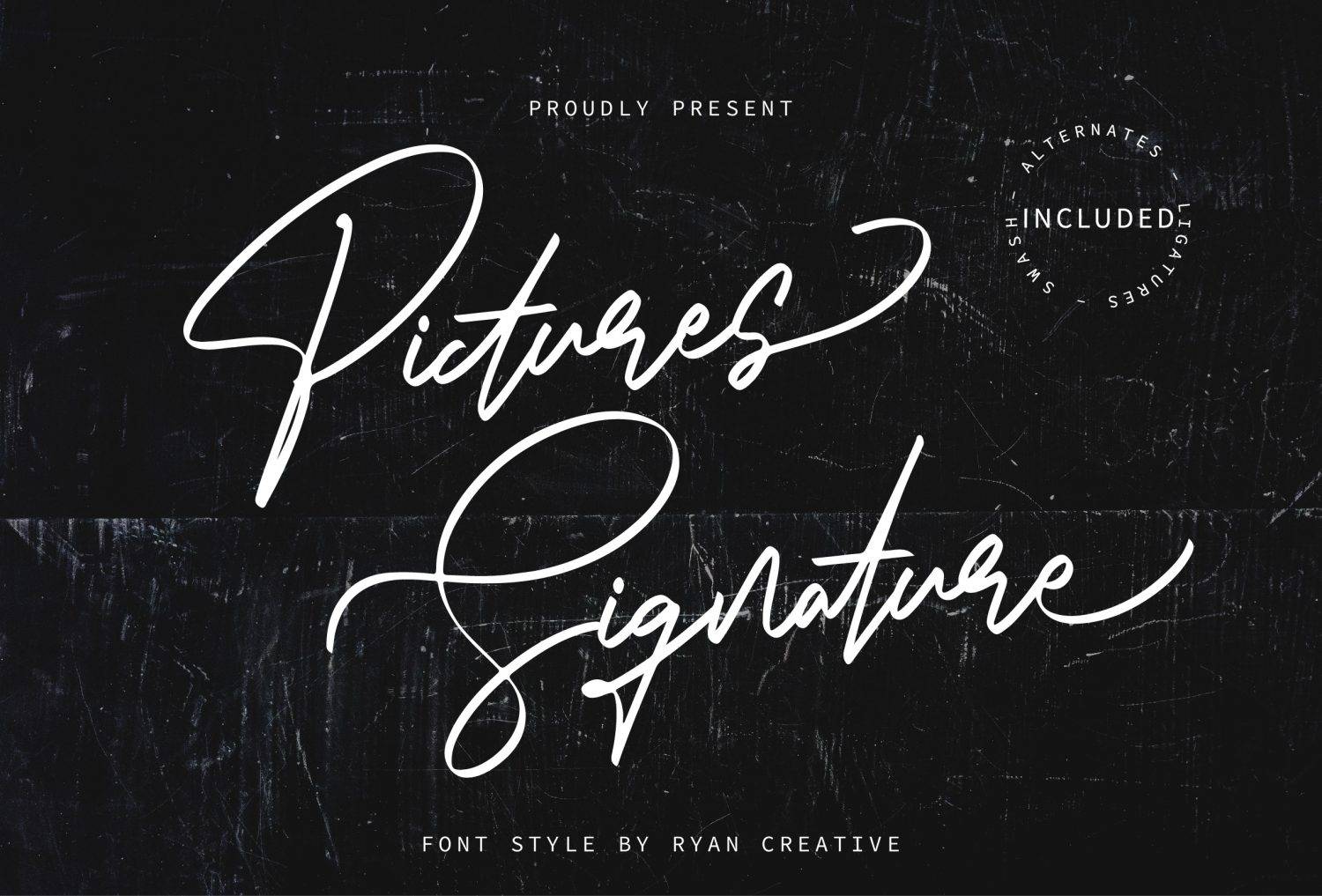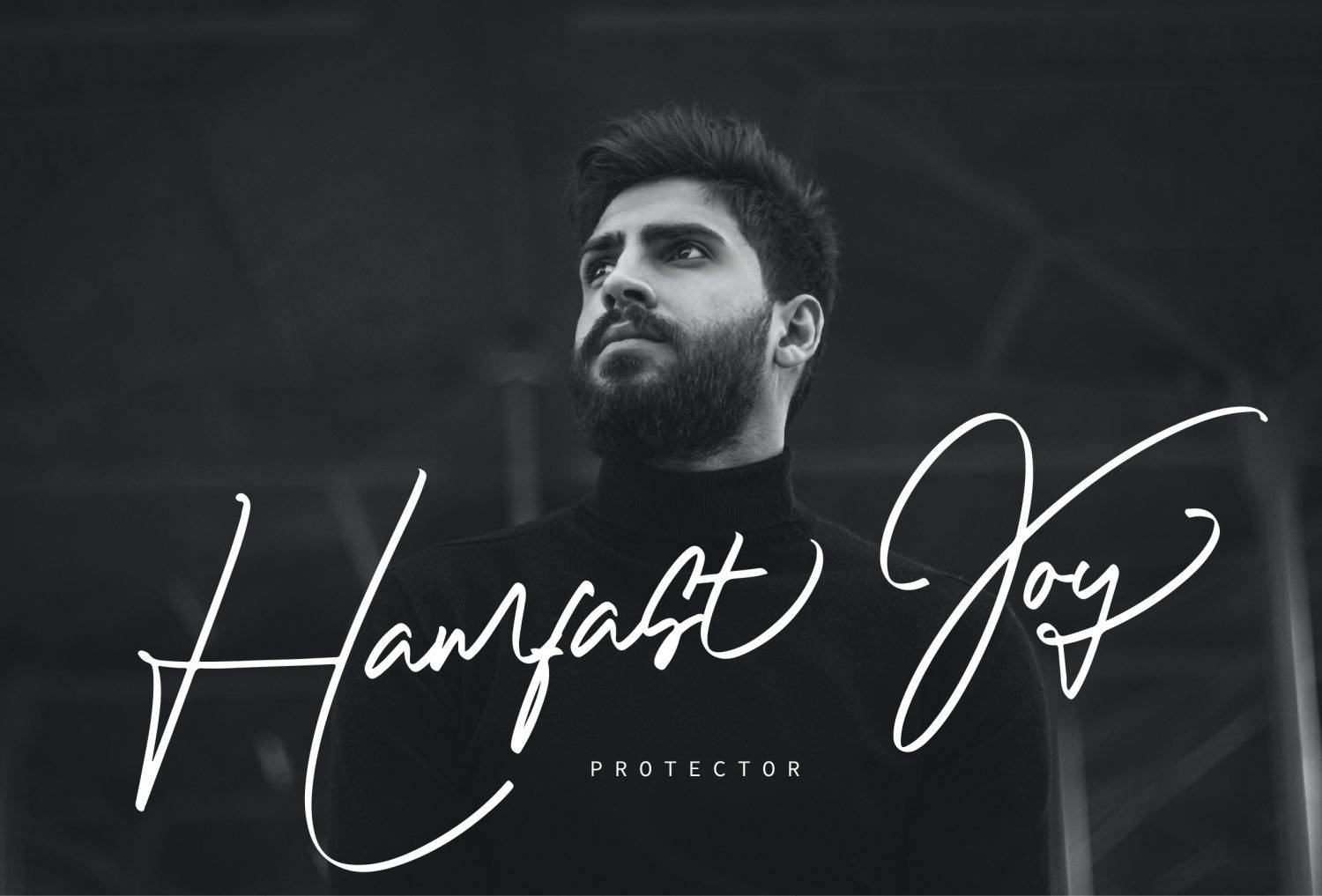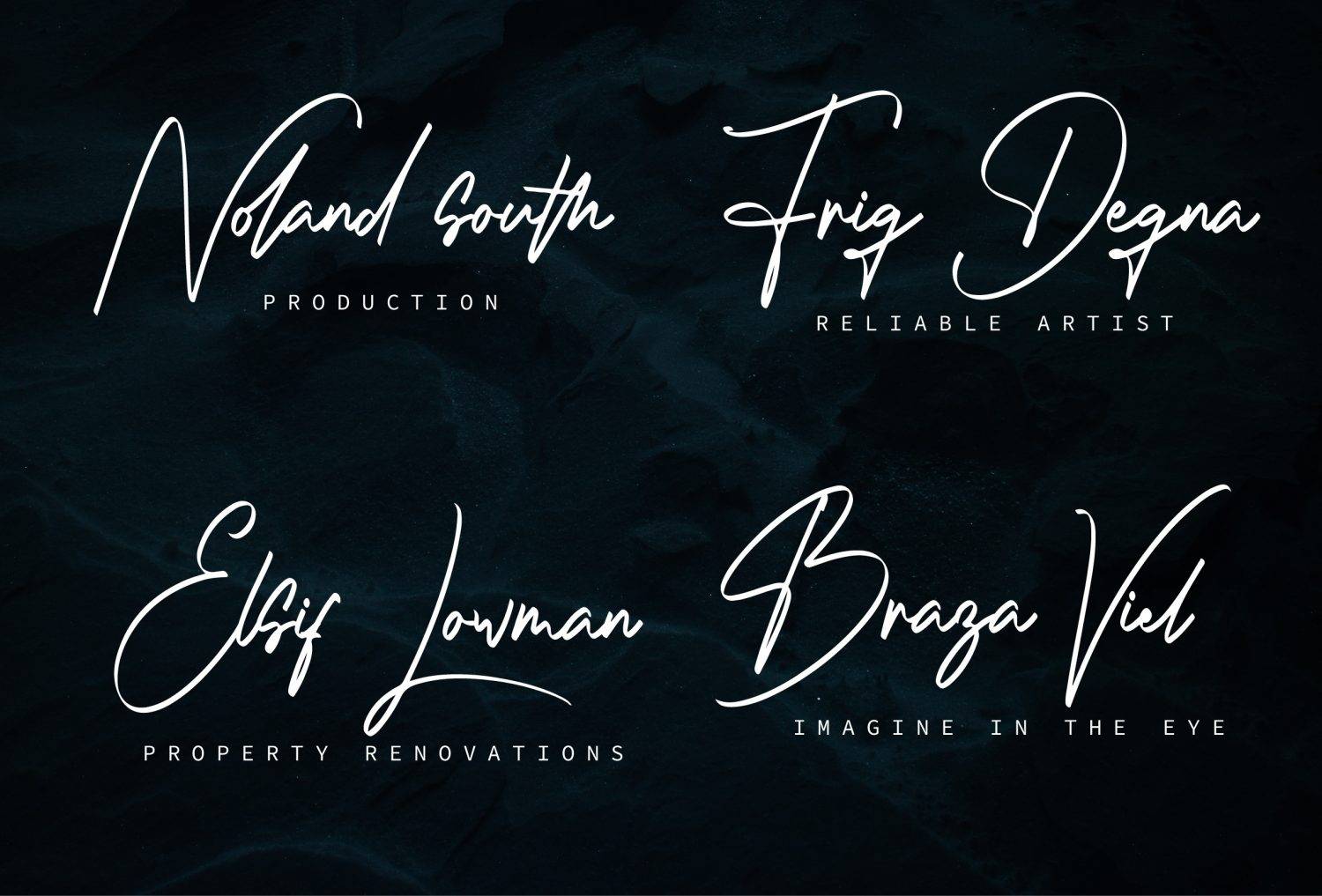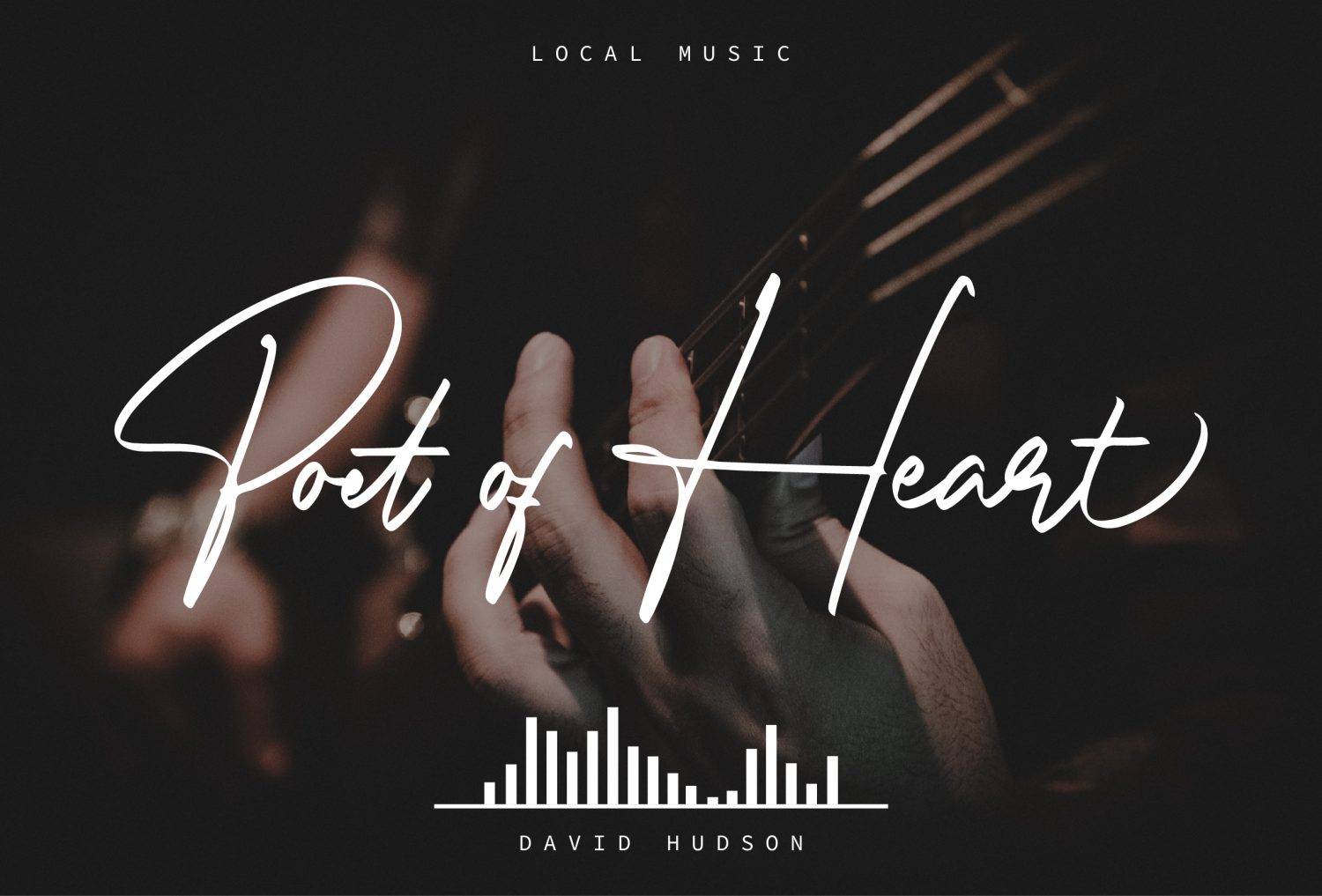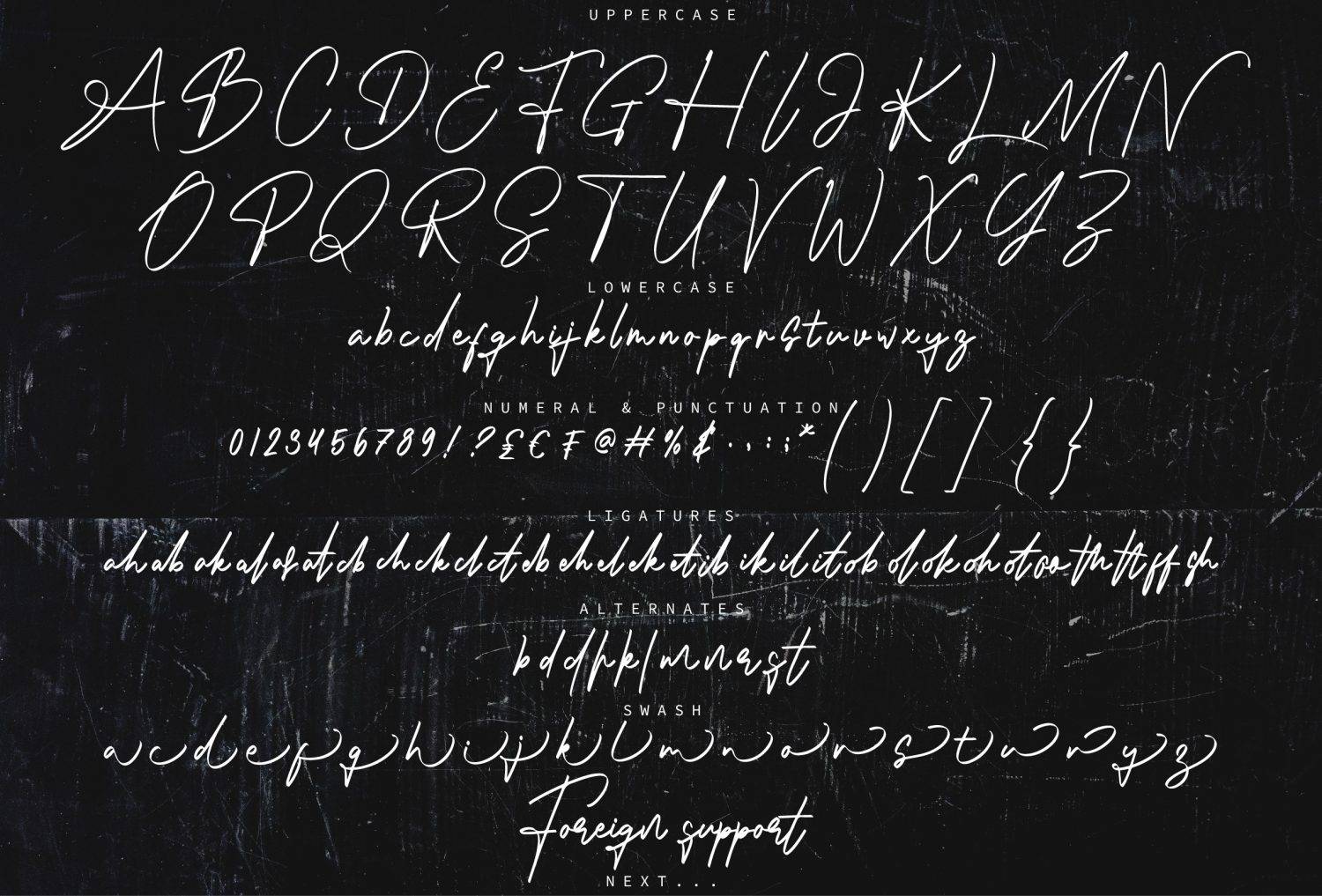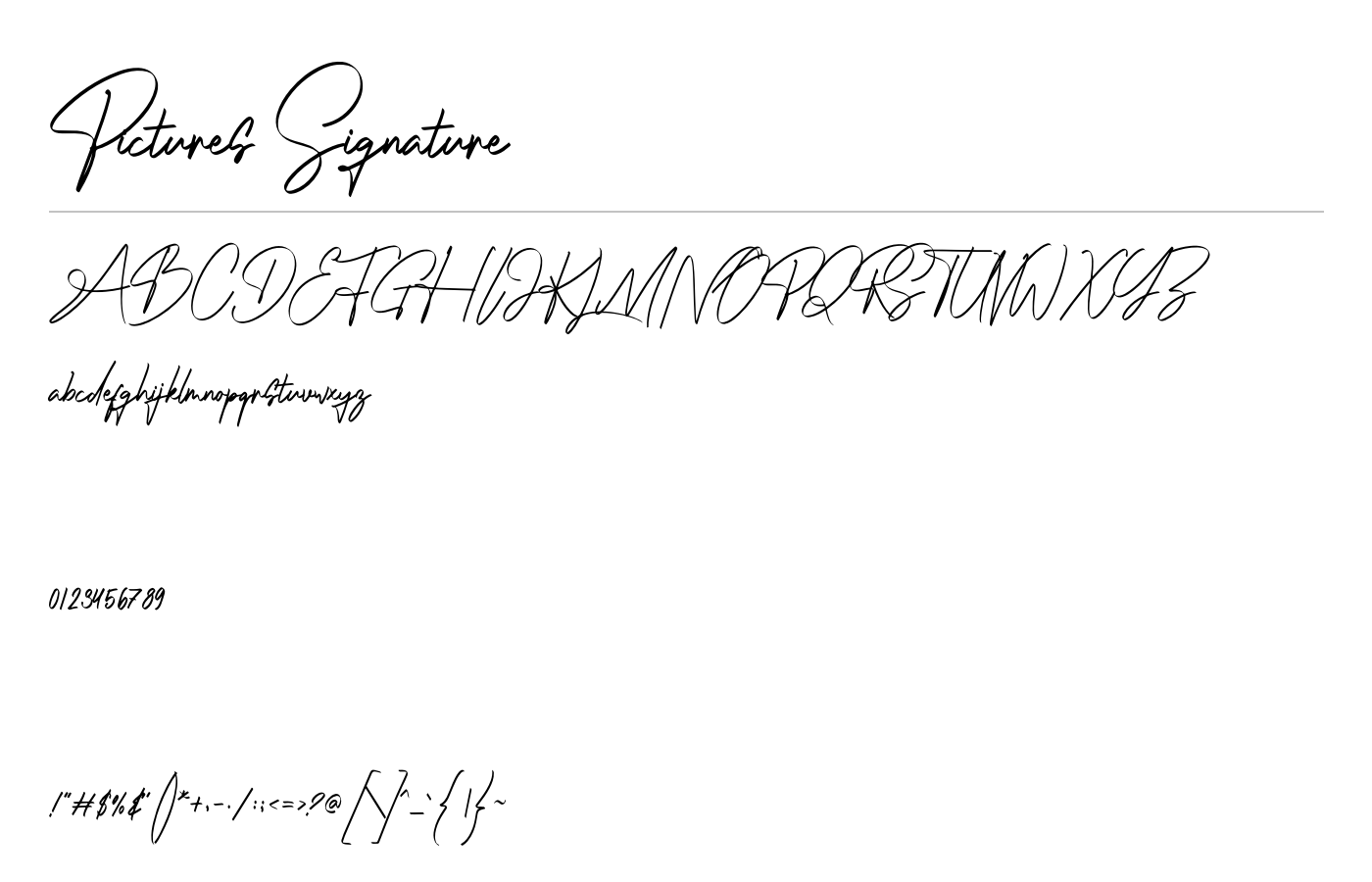
Pictures Signature Font is an elegant, handwritten script font that mimics a natural, flowing signature style with delicate, fine strokes and a light weight. Its tall, narrow letterforms and subtle, organic irregularities give it a personal and sophisticated feel, making it perfect for branding, invitations, and fashion-related designs where a refined yet approachable touch is desired. This font works beautifully in logos or headlines where a graceful, authentic handwritten look can truly stand out.
Pictures Signature Font
About Pictures Signature Font
| Font family | Pictures Signature Font |
| Designer | Akhmad riyan danuarta |